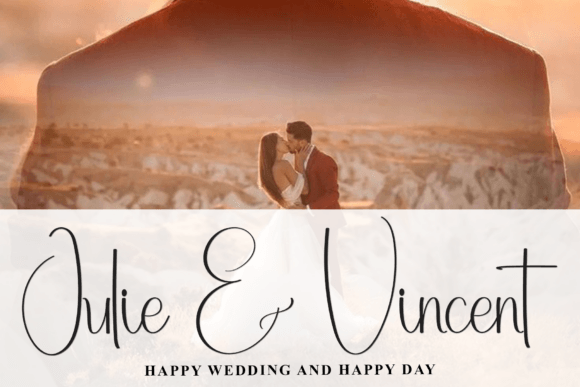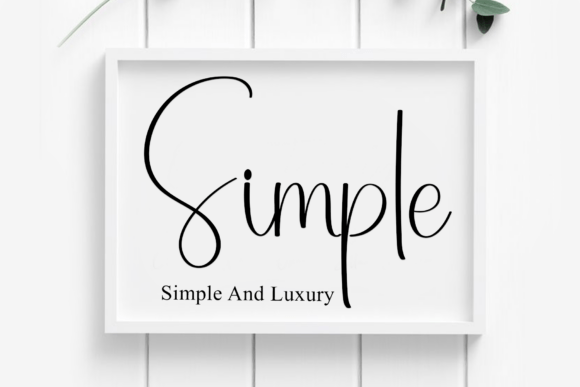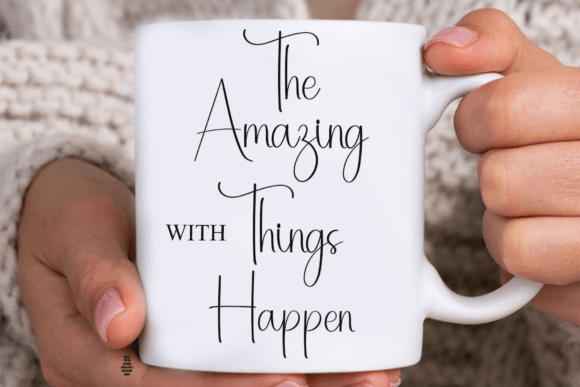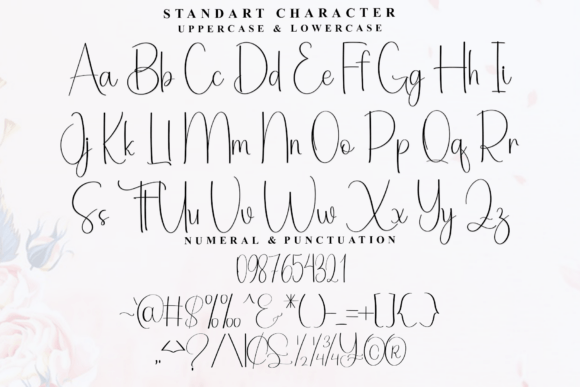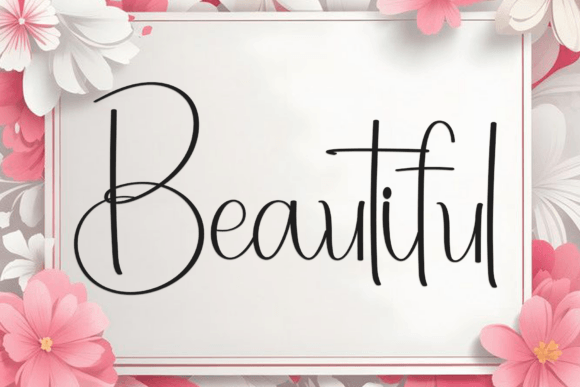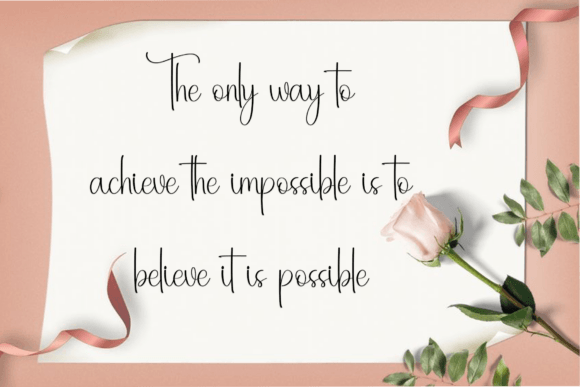
Hatton Christmas Font: A Timeless and Lovely Handwritten Font for Your Holiday Designs
Are you looking for a beautiful and unique font to make your holiday designs stand out? Look no further than the Hatton Christmas Font! This lovely and timeless handwritten font is perfect for creating eye-catching logos, branding, and quotes that will make your design come alive. In this article, we’ll take a closer look at the Hatton Christmas Font and explore its features, benefits, and uses.
A Unique and Beautiful Touch
One of the standout features of the Hatton Christmas Font is its unique and beautiful touch. Every letter has been carefully crafted to have its own distinct character, making it perfect for creating designs that are both personal and professional. Whether you’re designing a logo, a Christmas card, or a holiday-themed website, this font is sure to add a touch of elegance and sophistication.
The font’s handwritten style gives it a warm and inviting feel, making it perfect for designers and crafters who want to create designs that are both festive and fun. The letters are flowing and connected, with a natural and organic look that will make your designs stand out from the crowd.
The Hatton Christmas Font is PUA (Private Use Area) encoded, which means that you can access all of the amazing glyphs and ligatures with ease. PUA encoding allows you to access a wide range of special characters and glyphs that are not available in standard fonts, making it perfect for designers who want to add a little extra something to their designs.
With the Hatton Christmas Font, you can easily access swashes, ligatures, and other special characters that will take your designs to the next level. Whether you’re creating a festive holiday design or a beautiful wedding invitation, this font has everything you need to make your design shine.
The Hatton Christmas Font is perfect for designers and crafters who want to create beautiful and unique holiday designs. Whether you’re designing for personal use or for clients, this font is sure to become a favorite in your collection.
Designers will love the font’s versatility and flexibility, making it perfect for a wide range of design projects, from logos and branding to websites and social media graphics. Crafters will love the font’s whimsical and playful feel, making it perfect for creating handmade cards, gift tags, and other holiday crafts.
Benefits of Using the Hatton Christmas Font
So why choose the Hatton Christmas Font for your holiday designs? Here are just a few benefits of using this amazing font:
- Unique and beautiful design: Every letter has a unique and beautiful touch that will make your designs stand out.
- PUA encoded: Easy access to glyphs and ligatures for added design flexibility.
- Versatile: Perfect for a wide range of design projects, from logos and branding to websites and social media graphics.
- Whimsical and playful: Adds a touch of festive fun to your designs.
- Elegant and sophisticated: Perfect for creating professional and polished designs.